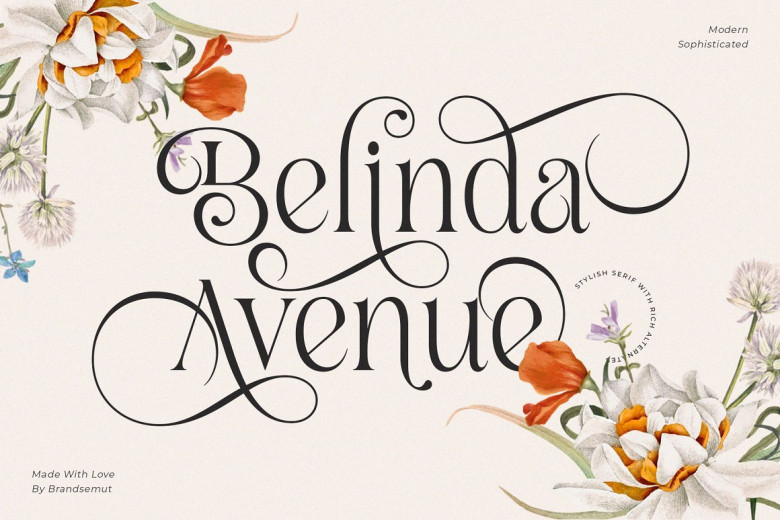
Belinda Avenue Font
Belinda Avenue is a classic and stylish display serif font. Its rich stylistic alternates make it perfect as a headline, logo, brand image, magazine heading or product packaging. Belinda Avenue, equipped with Ligature, the same Alternates font as our previous product, redirects static fonts into dynamic with soft curves and polished lines for each element of any project.
Belinda Avenue Serif Font